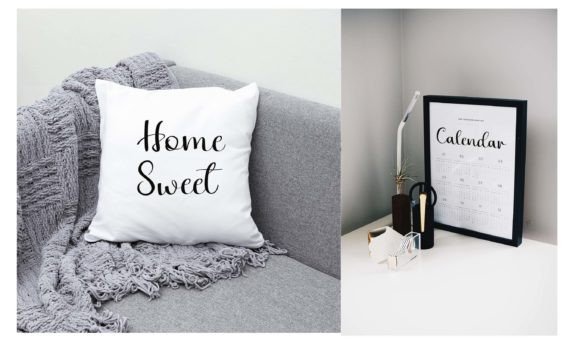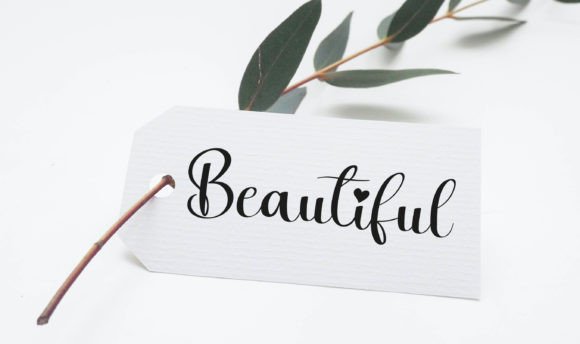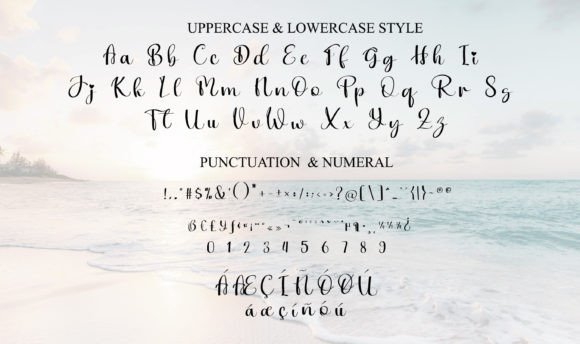
Introduction to Palm Beach Font
As designers, we’ve all been there – staring at a blank page, trying to bring our creative vision to life. The spark of inspiration hits, and suddenly, the perfect font appears in our minds. For many, that font is the Palm Beach Font, a charming handwritten font that exudes elegance and sophistication.
Whether you’re designing a wedding invitation, a quote for a social media post, or a brand identity for a new business, the Palm Beach Font is the perfect addition to elevate your design. Its high-quality, handwritten touch adds a personal and creative touch to any project, making it a valuable resource for designers.
With its transparent background and free download availability, the Palm Beach Font is an excellent design resource for any creative project, allowing designers to focus on bringing their unique ideas to life without any limitations.
Palm Beach Font
- High-quality design resource with a unique, stylish aesthetic, perfect for creative projects.
- Features a transparent background, making it ideal for use on various backgrounds and designs.
- Includes a range of characters, including uppercase and lowercase letters, numbers, and special characters.
- Designed with a high resolution, making it suitable for use in print and digital applications.
- Available in a single font size, but can be easily scaled to fit various design needs.
- Perfect for use in design projects that require a touch of elegance and sophistication, such as invitations, posters, and branding materials.
Honest Review: Palm Beach Font
I recently stumbled upon the Palm Beach Font and I have to say, it’s a great addition to any design library. As a designer, I’m always on the lookout for high-quality fonts that can elevate my creative projects.
The Palm Beach Font is a beautiful script font that exudes a sense of sophistication and elegance. It’s perfect for designing invitations, menus, and other design elements that require a touch of luxury.
- ✨ Beautiful script font that’s perfect for creative projects
- ✨ Great for designing invitations, menus, and other luxury items
- ✨ Can be used on designs with transparent backgrounds
- ⚠️ Limited character set, which may not be ideal for longer text
- ⚠️ Not suitable for use in body text, as it’s a script font and may be difficult to read
Overall, I’m impressed with the Palm Beach Font. It’s a great addition to any design library and can add a touch of elegance to any creative project. Just be aware of its limitations and use it accordingly.
To get the most out of the Palm Beach Font, use it for creative projects that require a unique and stylish touch. Some common use cases include designing invitations, creating social media graphics, and developing branding materials. Remember to use the font with a transparent background to add depth and visual interest to your design.